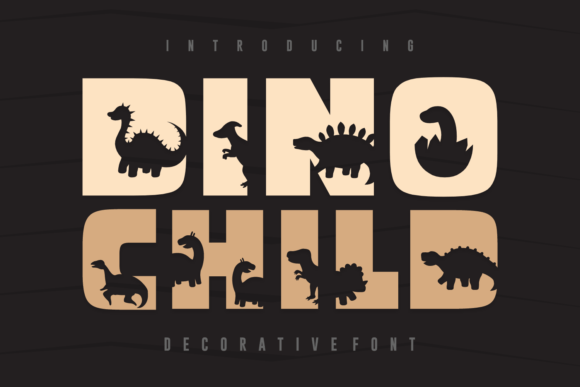
Unleash the Prehistoric Magic with Dino Child Font
Are you looking for a typeface that will transport you and your audience back to a time when the young and wonderful creatures of the ancient world roamed the earth? Look no further than the Dino Child font, a playful and decorative typeface inspired by the adorable charm of juvenile dinosaurs.
A Playful and Decorative Typeface
Dino Child is a unique and enchanting typeface that is sure to capture the hearts of designers, crafters, and anyone who loves dinosaurs. Its delightful letters evoke an atmosphere of fun and curiosity, making it the perfect choice for children’s design projects, such as book covers, posters, and educational materials.
Inspired by Juvenile Dinosaurs
The Dino Child font is inspired by the adorable charm of juvenile dinosaurs, bringing to life the imagination of what it would be like to encounter these prehistoric creatures in their younger years. The typeface’s design is carefully crafted to reflect the playfulness and curiosity of young dinosaurs, making it an ideal choice for projects that require a fun and youthful touch.
Perfect for Children’s Design Projects
Dino Child is an excellent choice for designers and crafters who work on children’s design projects. The typeface’s playful and decorative design makes it perfect for:
- Children’s book covers and illustrations
- Educational materials, such as worksheets and activity sheets
- Posters and flyers for kids’ events and activities
- Digital and print materials for kids’ websites and blogs
Key Features of Dino Child Font
The Dino Child font comes with a range of features that make it an excellent choice for designers and crafters. Some of its key features include:
- Playful and decorative design
- Inspired by the adorable charm of juvenile dinosaurs
- Perfect for children’s design projects
- Delightful letters that evoke an atmosphere of fun and curiosity
- Carefully crafted to reflect the playfulness and curiosity of young dinosaurs
In conclusion, the Dino Child font is a unique and enchanting typeface that is sure to capture the hearts of designers, crafters, and anyone who loves dinosaurs. Its playful and decorative design makes it perfect for children’s design projects, and its delightful letters evoke an atmosphere of fun and curiosity. With its range of features and ease of use, the Dino Child font is an excellent choice for anyone looking to add a touch of prehistoric magic to their designs.